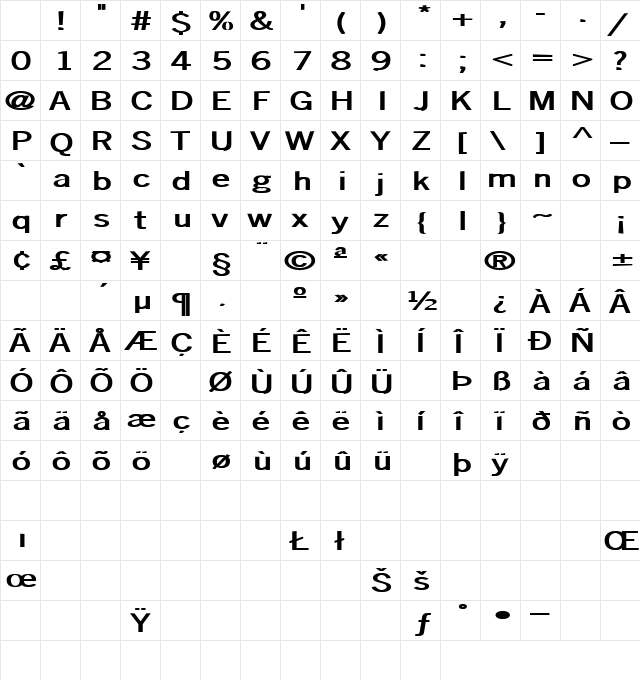
Complete Breakdown 11 Bold glyph index. Displaying only characters natively supported by Breakdown 11 Bold font.
Breakdown 11 is a composed and adaptable typeface that performs quietly and consistently across a wide range of design contexts. Its bold stroke weight gives it real presence on the page.